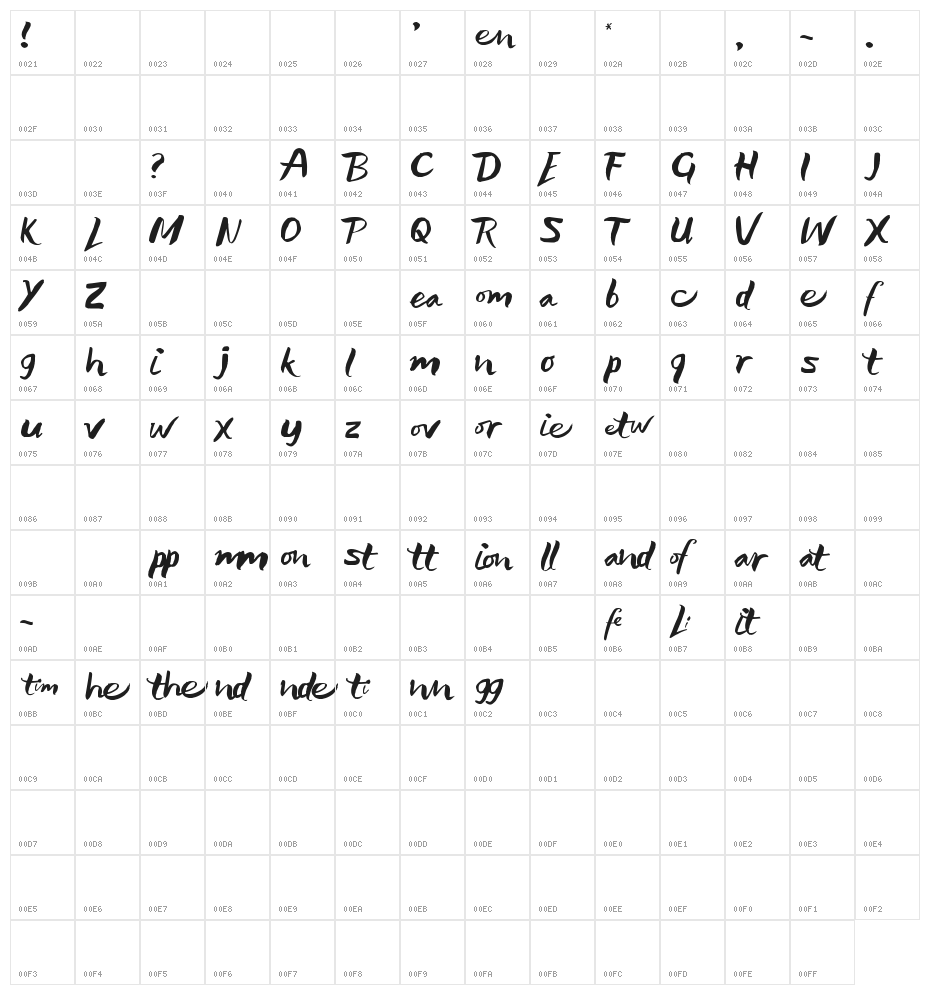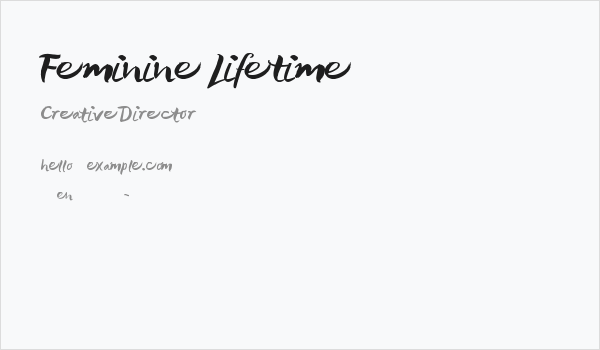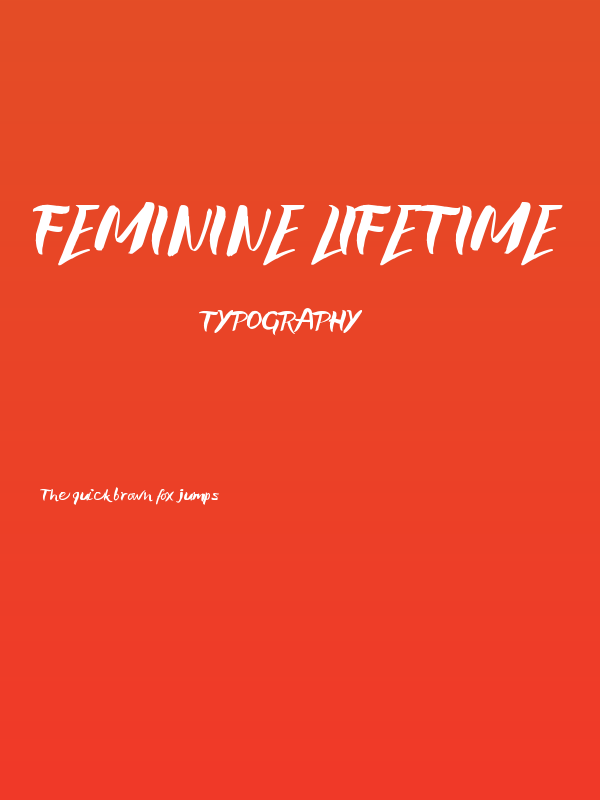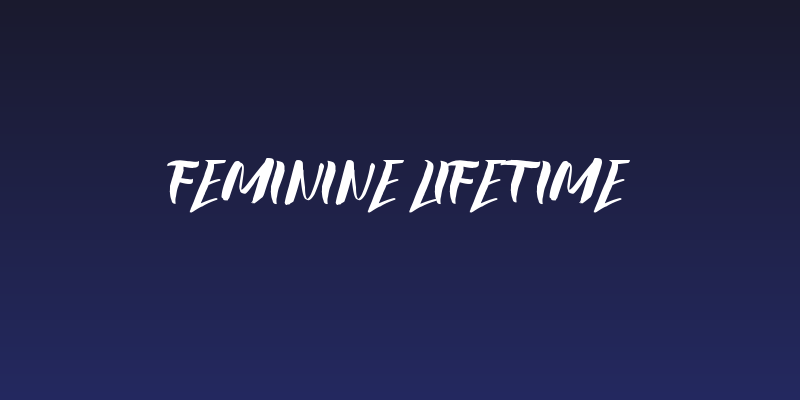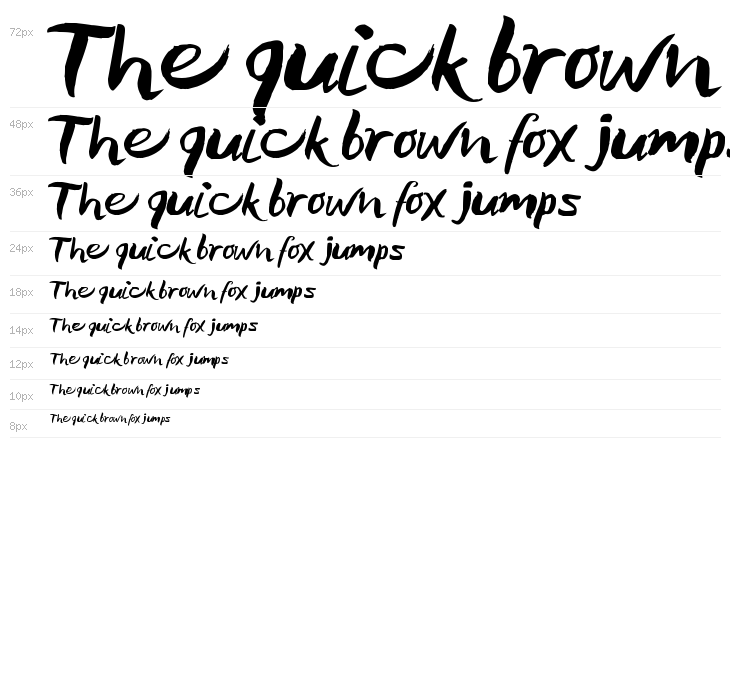
Feminine Lifetime Font
Feminine Lifetime Description
This font exhibits a dynamic and expressive style, characterized by its fluid and cursive strokes that convey a sense of movement and elegance. The uppercase letters are bold and slightly slanted, giving them a dramatic flair, while the lowercase letters maintain a consistent flow with smooth curves and connections. The strokes vary in thickness, adding a lively contrast that enhances readability and visual interest. The font includes a range of special characters, maintaining the same energetic and artistic style. Its overall appearance is both modern and artistic, making it suitable for creative and expressive design projects.
| Overall Style | Modern, Artistic |
| Proposed Projects | Ideal for wedding invitations, artistic branding, fashion magazines, and creative posters. |